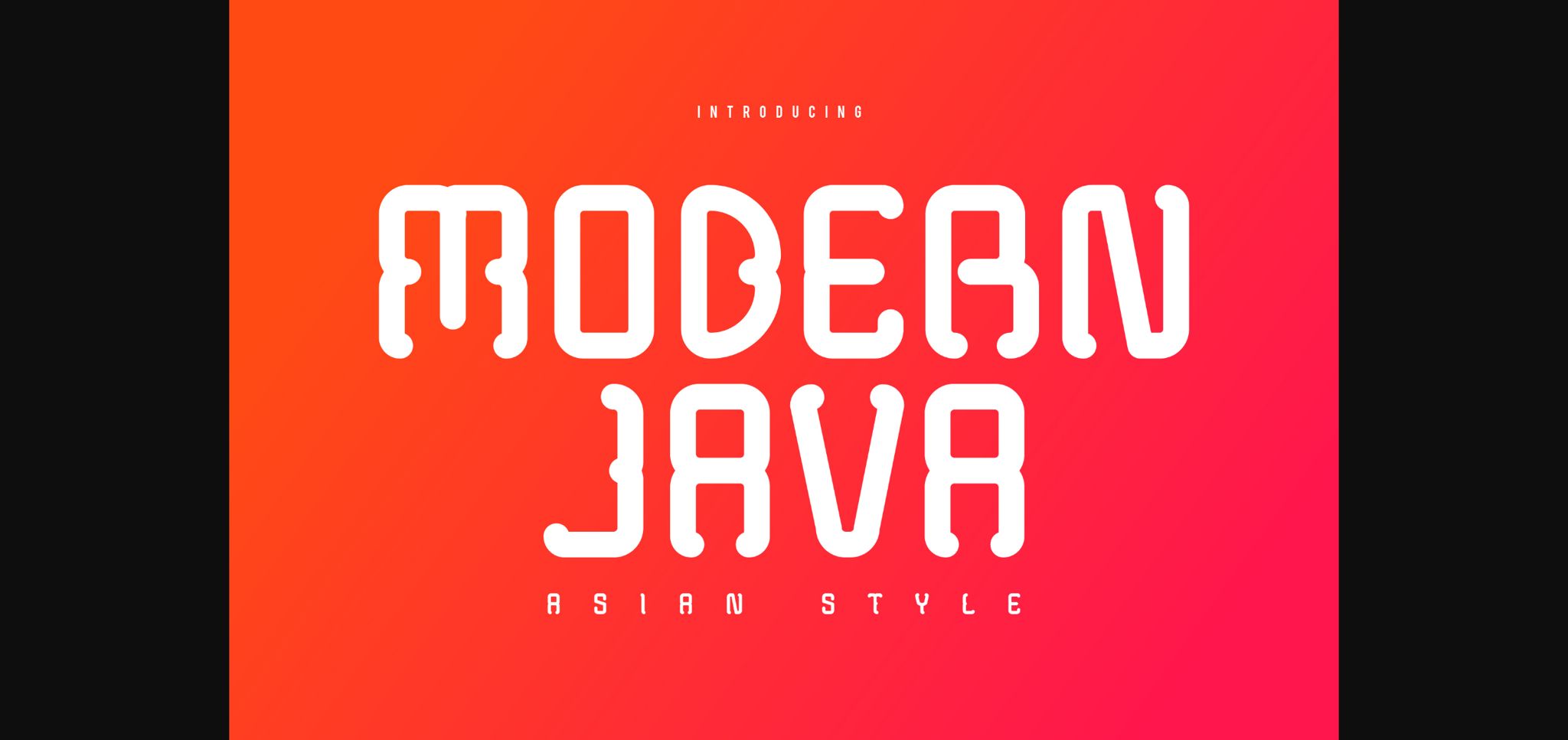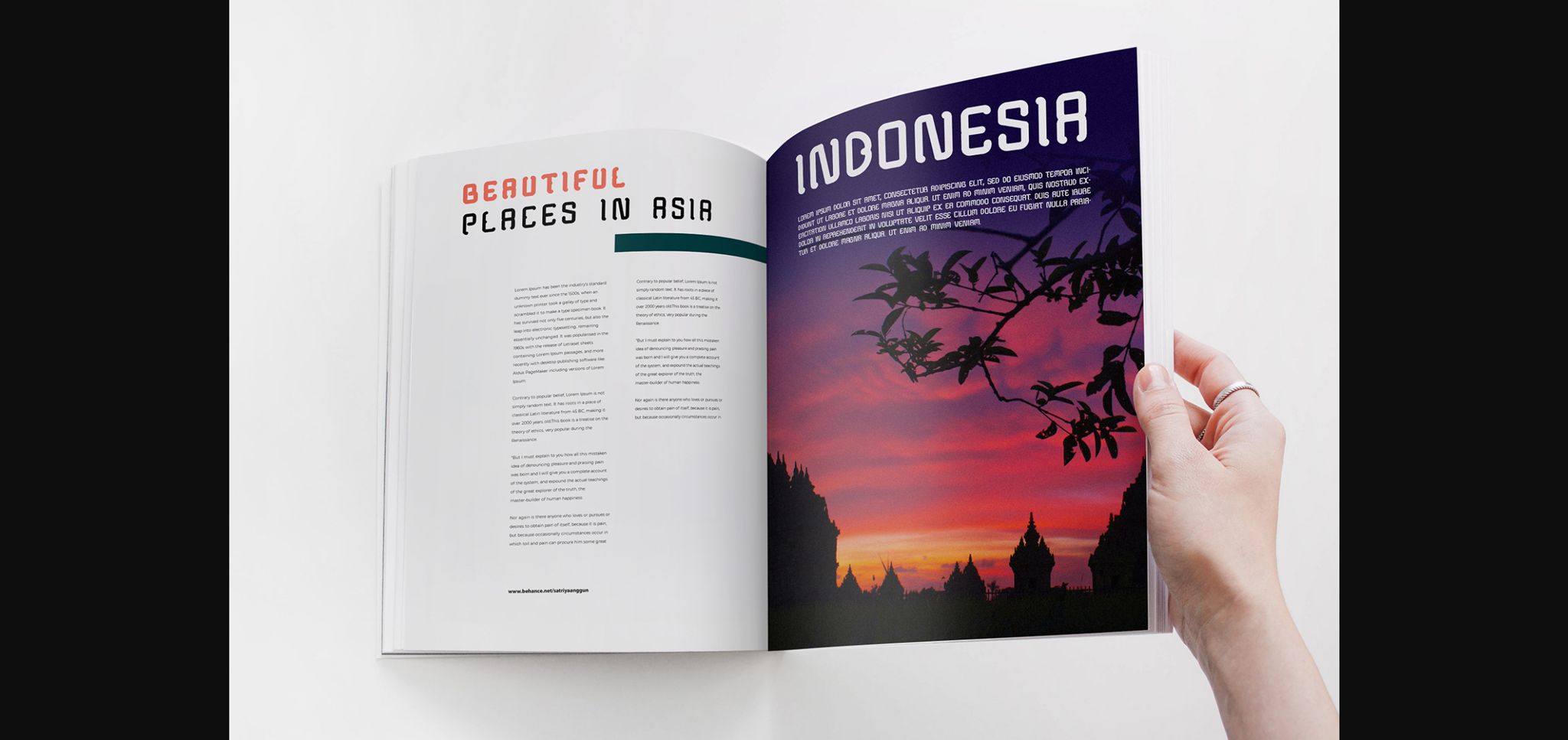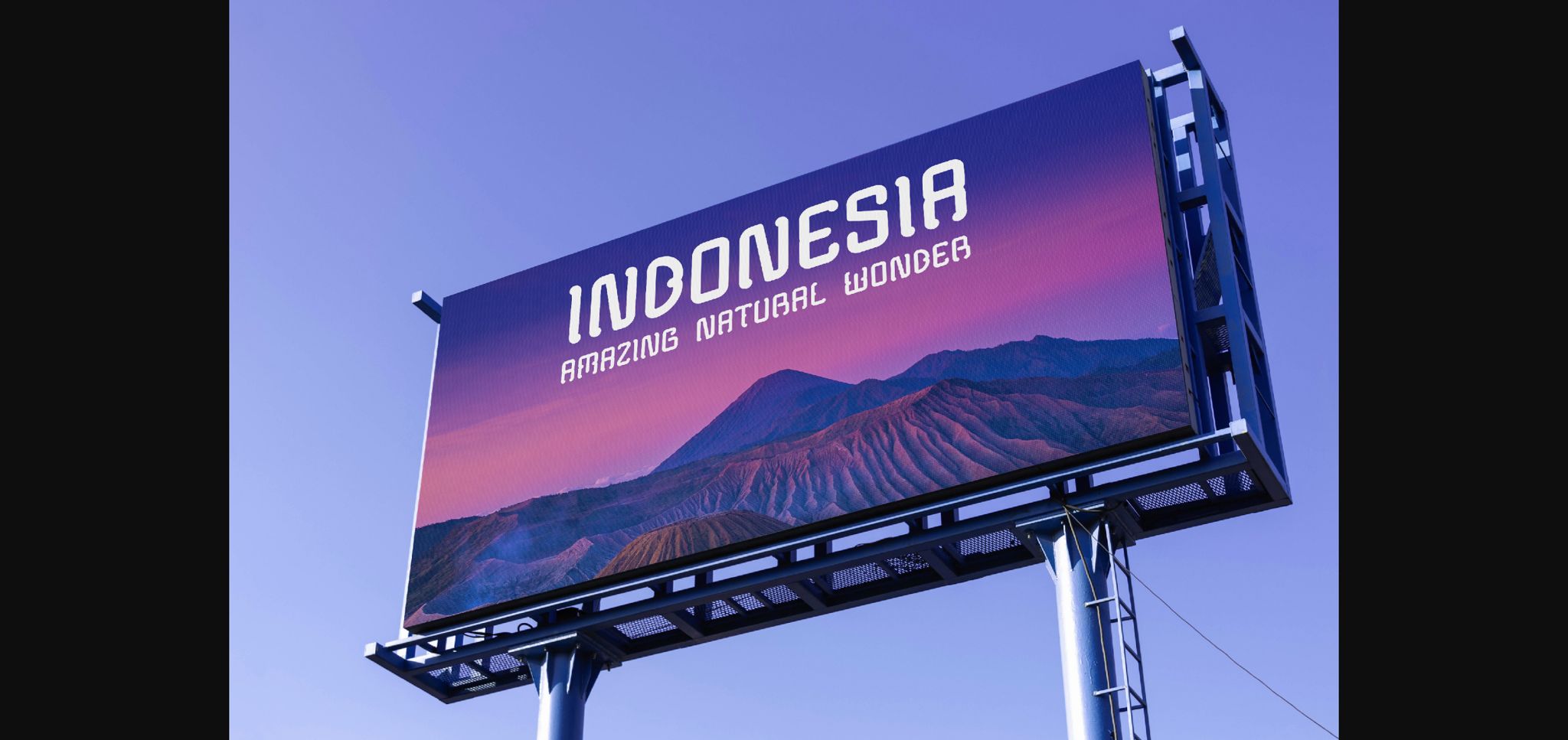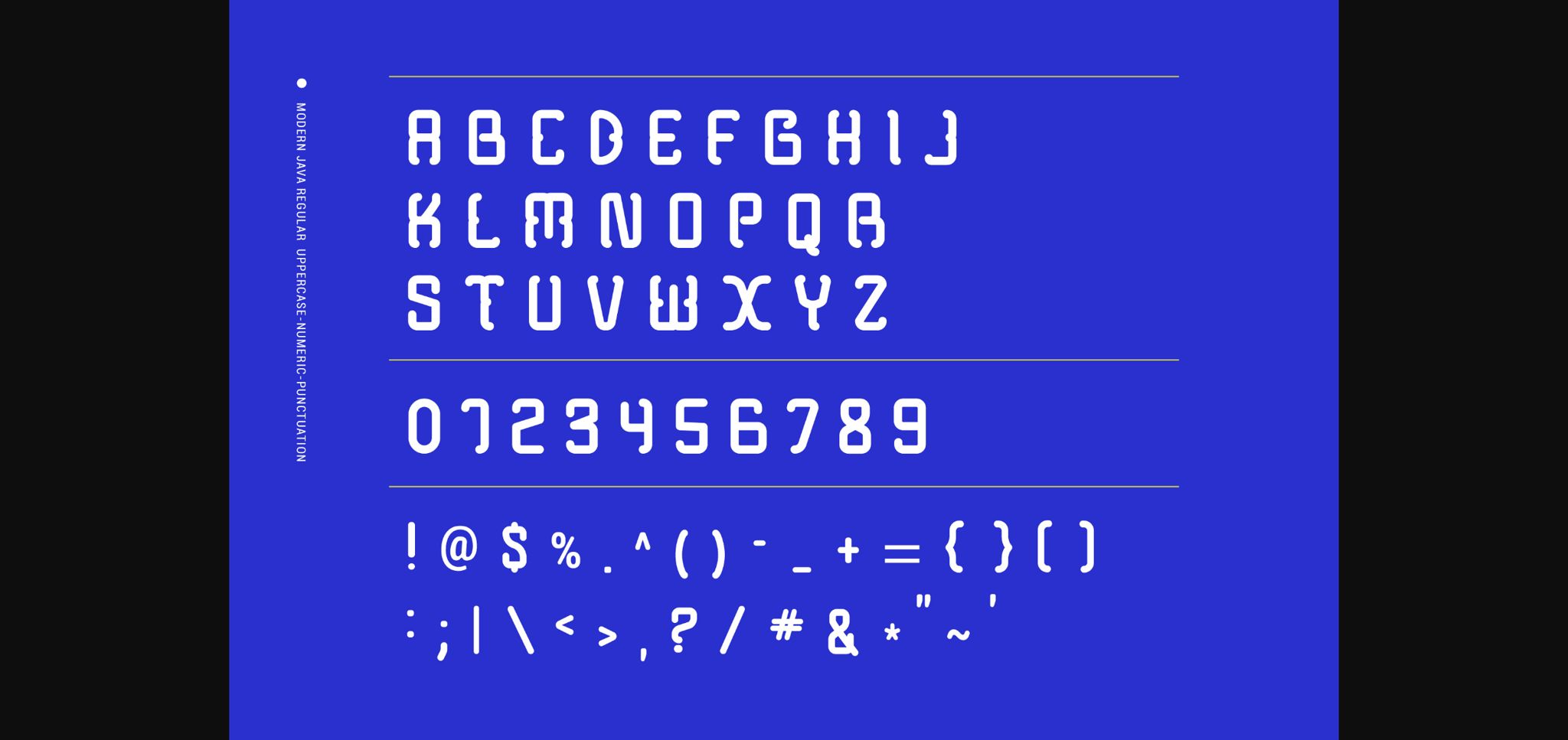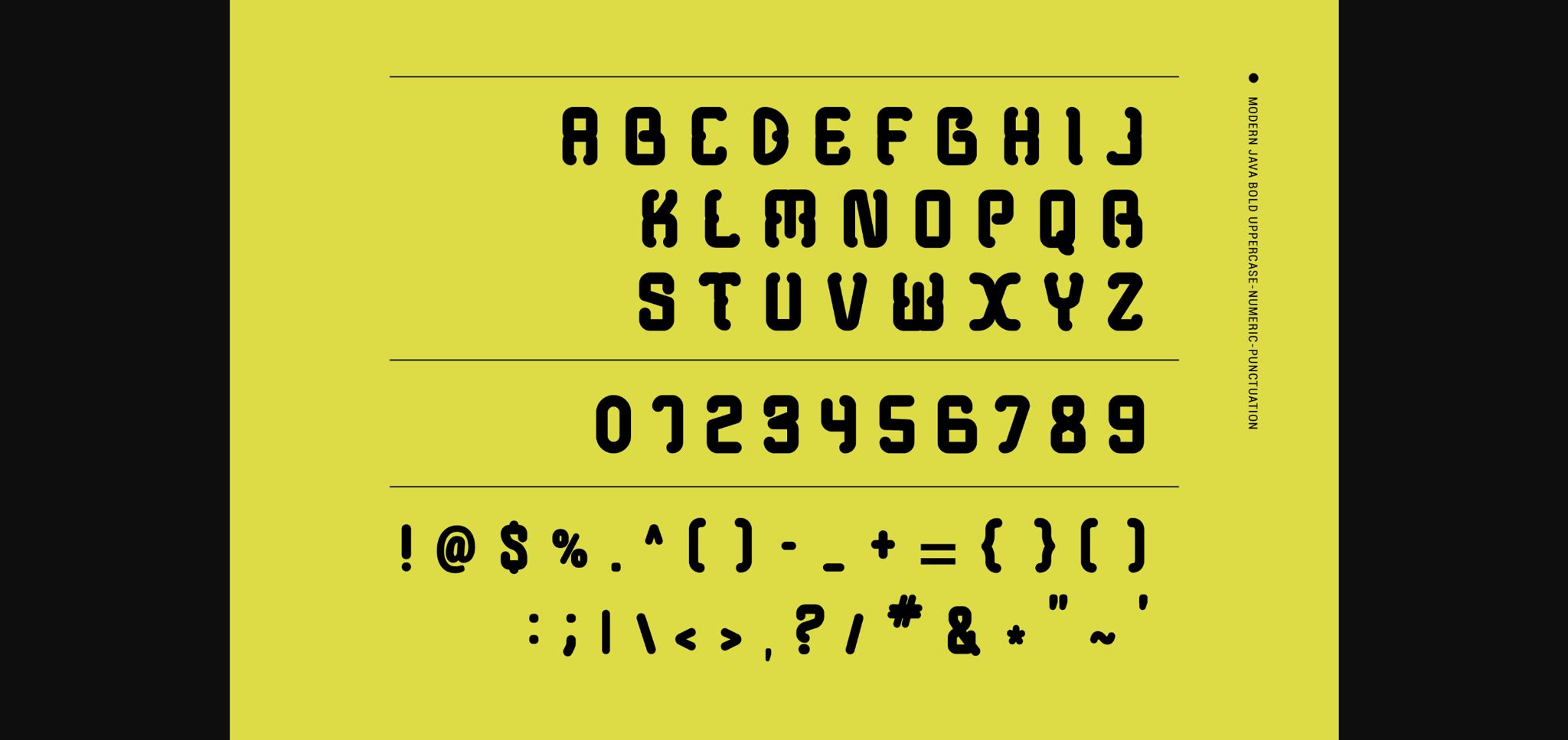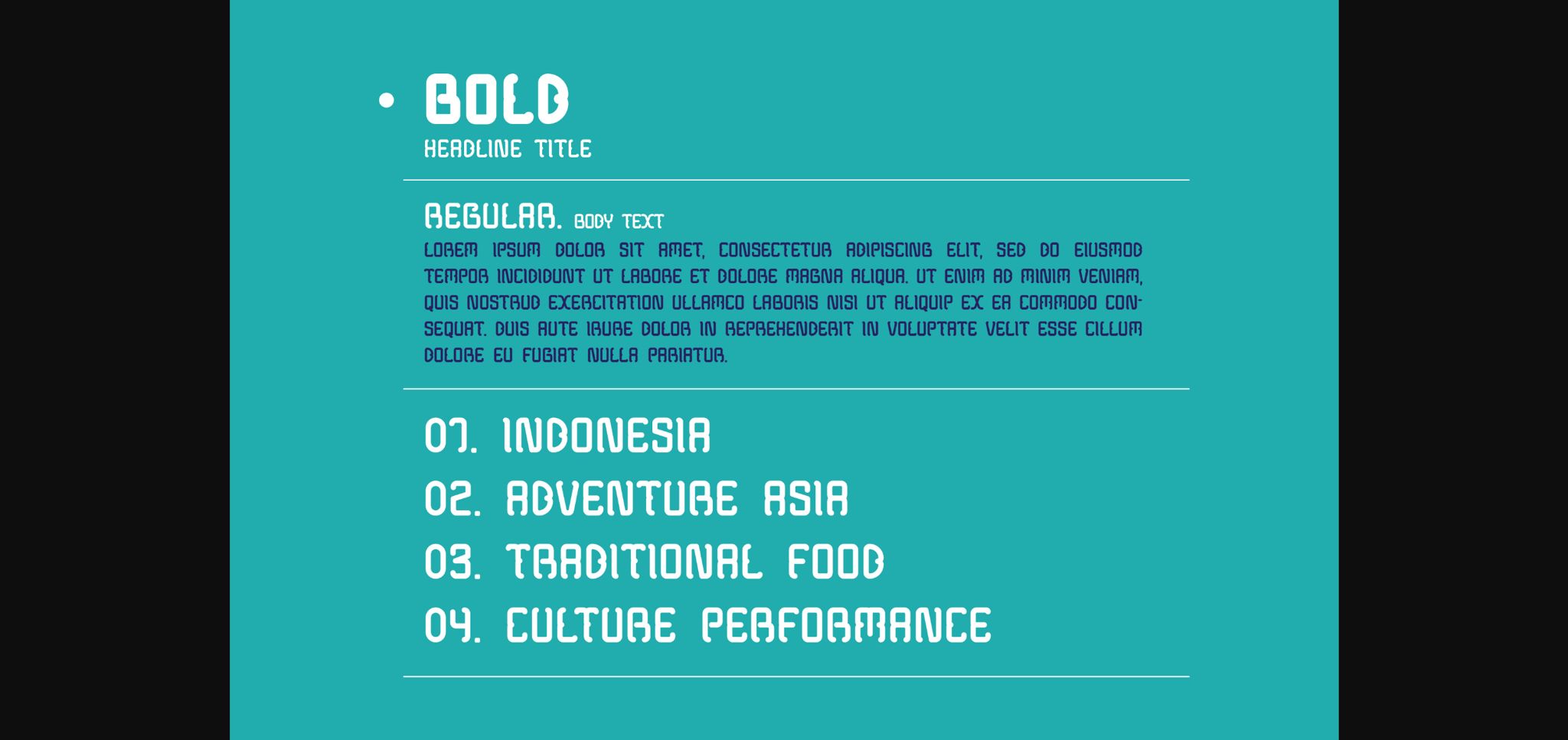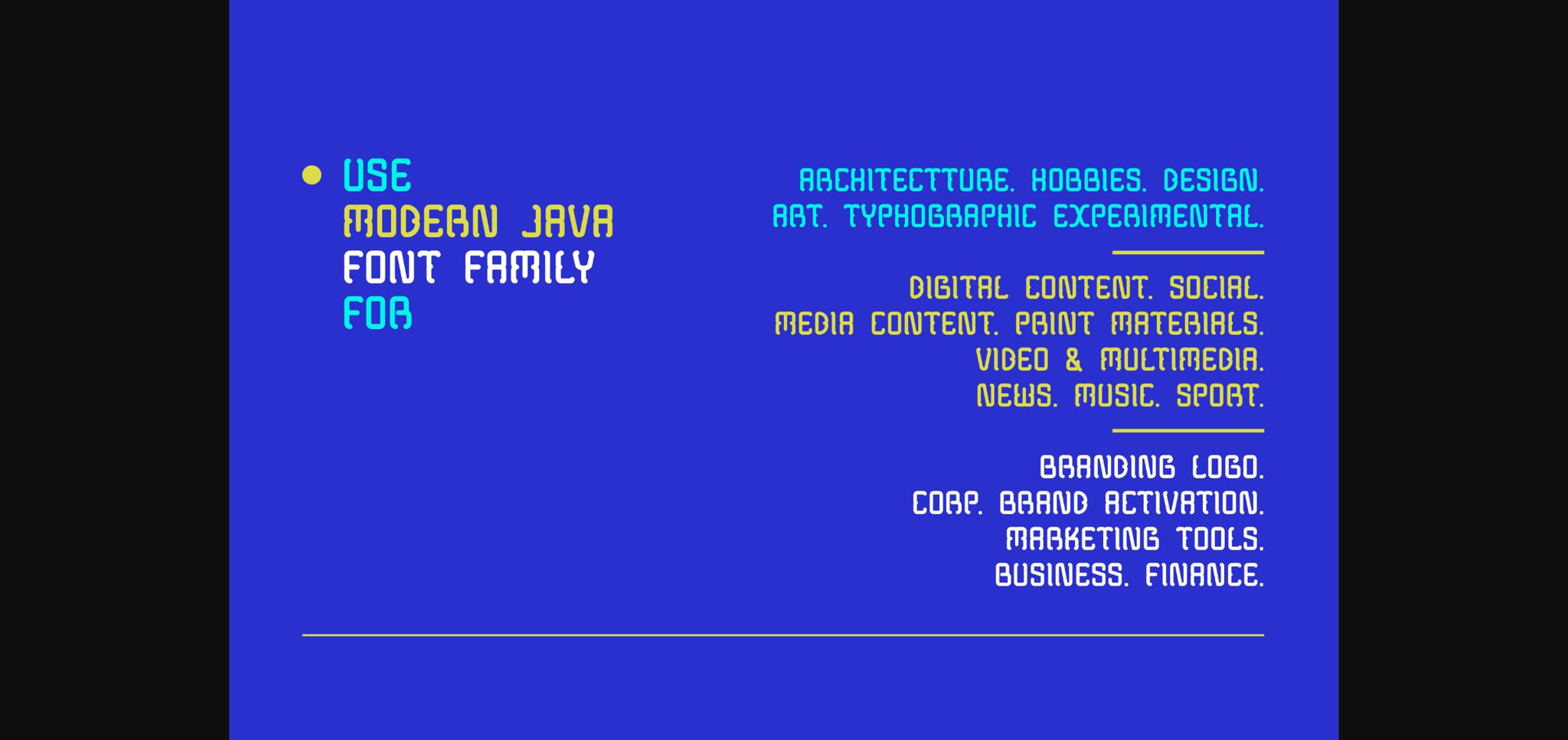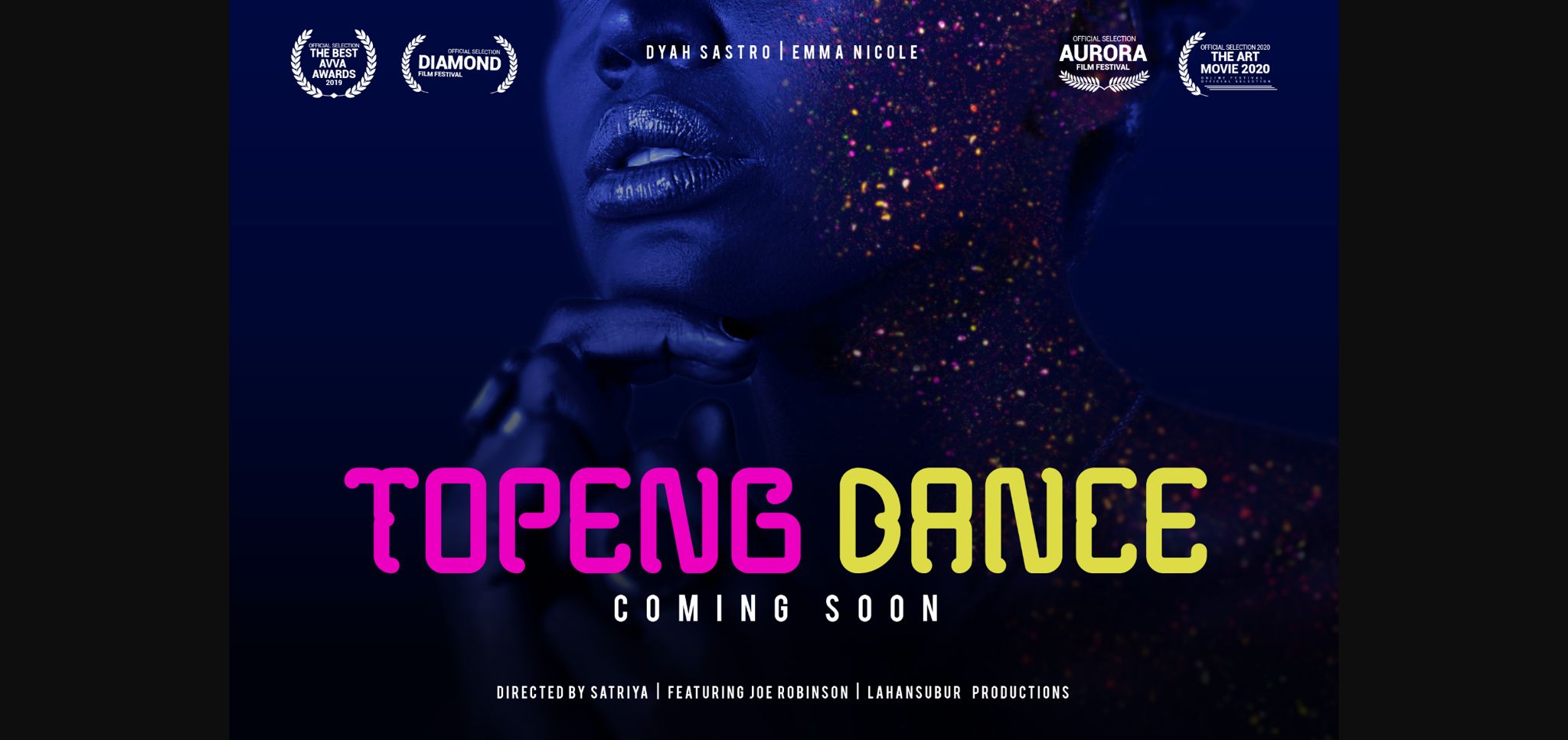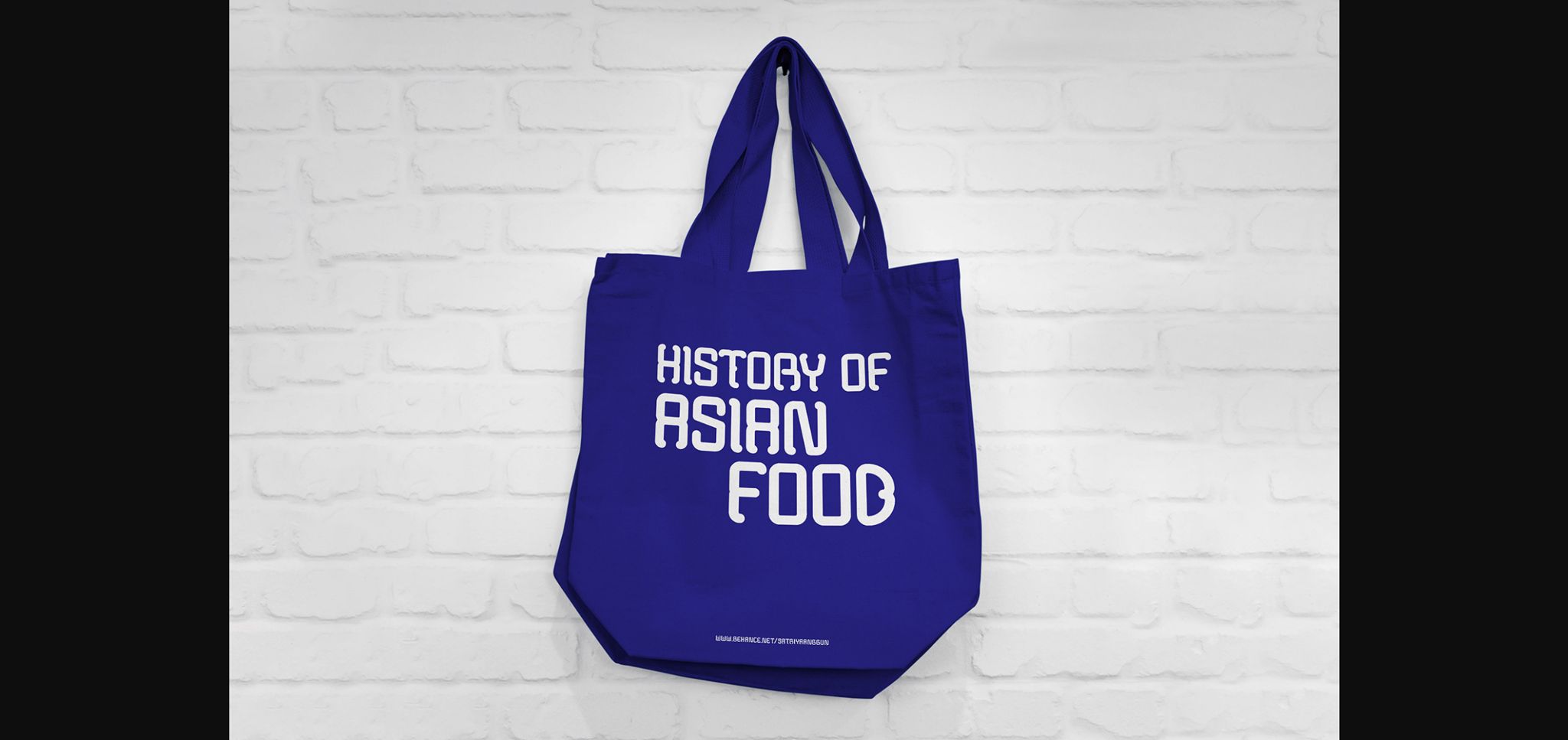
Modern Java Font
Modern Java is a great sans serif font. It features a unique look that will elevate your designs to the highest level. It will complement any design need perfectly with its perfectly balanced mix of the smooth and sharp!